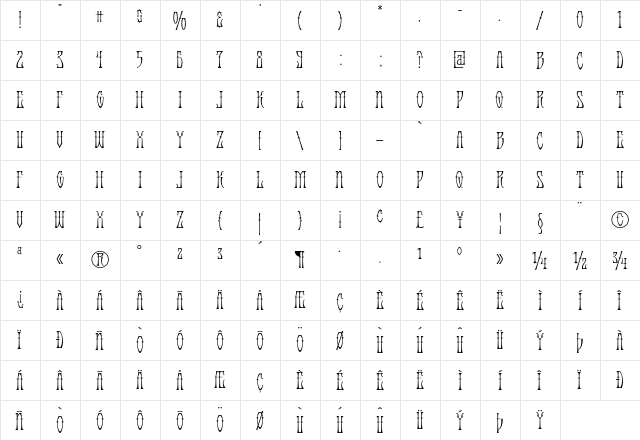
Antique Android Regular
| Foundry | Russ McMullin |
| Designer | Russ McMullin |
Design Context for Antique Android Typeface
Antique Android has the warm character of retro typography — evoking diners, record sleeves, and the golden age of print advertising.
Ideal for diner signage, record shop branding, 70s/80s-themed projects, and heritage product labels.
Font Pairing: Combine Antique Android with a simple slab or neutral sans — period-accurate companions reinforce the vintage feel without competing for attention.
Pro Tip: Lean into Antique Android's period character by pairing it with aged paper textures, muted colour palettes, and vintage illustration styles.